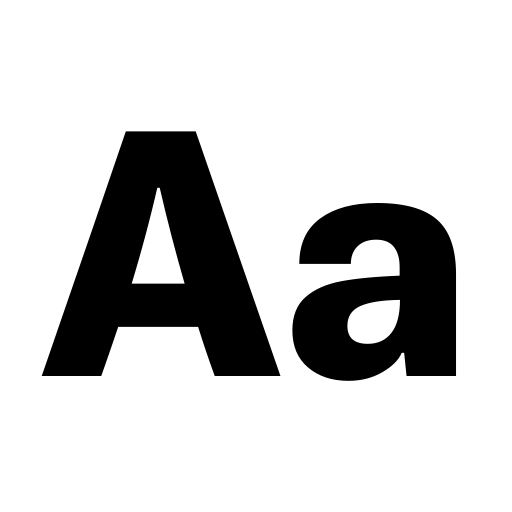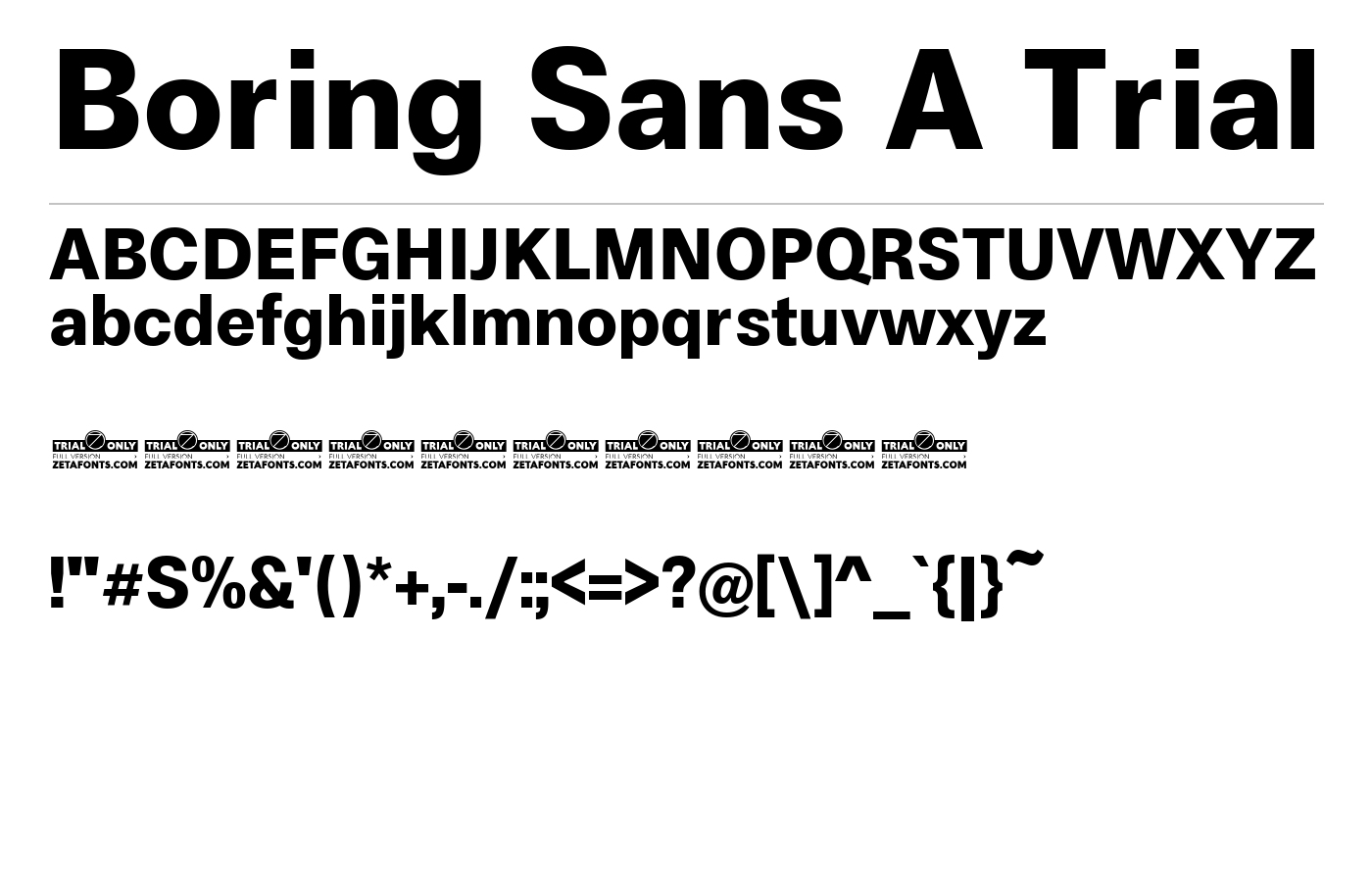
Boring Sans A Trial is a bold, clean sans serif font with a strong, straightforward presence and uniform stroke weight. Its high x-height and wide letterforms make it highly legible and suitable for headlines, branding, and editorial design that require a modern, no-nonsense feel. This font works well where clarity and impact are needed without unnecessary decoration.
Boring Sans A Trial Font
About Boring Sans A Trial Font
| Font family | Boring Sans A Trial Font |
| Designer | Cosimo Lorenzo Pancini |